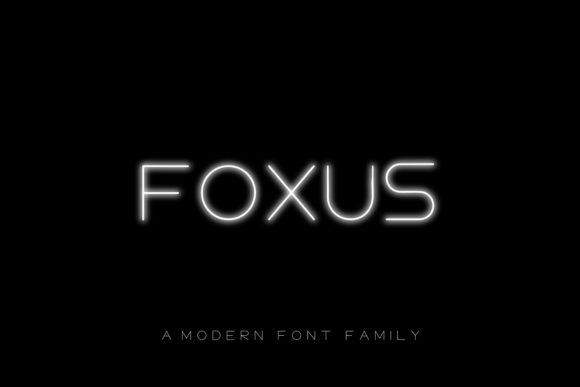
Introducing Foxus Font: The Modern Sans Serif for Creative Projects
Are you on the lookout for a font that can elevate your creative projects to the next level? Look no further than Foxus Font, a modern and neat lettered sans serif font that’s perfect for designers and crafters alike. With its clean lines and versatile design, Foxus Font can easily be matched to an incredibly large set of projects, making it a valuable addition to your typography toolkit.
What Makes Foxus Font Stand Out?
Foxus Font is a sans serif font, which means it doesn’t have the small lines or flourishes that are characteristic of serif fonts. This gives it a clean and modern look that’s perfect for projects that require a sleek and contemporary feel. The font is also highly legible, making it easy to read and understand, even at small sizes.
Key Features of Foxus Font
- Modern and Neat Design: Foxus Font has a modern and neat design that’s perfect for projects that require a clean and contemporary look.
- Highly Legible: The font is highly legible, making it easy to read and understand, even at small sizes.
- Versatile: Foxus Font can easily be matched to an incredibly large set of projects, making it a valuable addition to your typography toolkit.
- Easy to Use: The font is easy to use and can be easily integrated into your design workflow.
How to Use Foxus Font in Your Projects
Foxus Font can be used in a wide range of projects, from graphic design and branding to crafting and DIY projects. Here are a few ideas to get you started:
- Graphic Design: Use Foxus Font in your graphic design projects, such as logos, brochures, and business cards.
- Branding: Foxus Font is perfect for branding projects, such as packaging and advertising.
- Crafting: Use Foxus Font in your crafting projects, such as handmade cards and gift tags.
- DIY Projects: Foxus Font can be used in a wide range of DIY projects, such as signs and banners.
Tips for Getting the Most Out of Foxus Font
Here are a few tips for getting the most out of Foxus Font:
- Experiment with Different Sizes: Foxus Font looks great at a wide range of sizes, so don’t be afraid to experiment with different sizes to find the one that works best for your project.
- Pair it with Other Fonts: Foxus Font can be paired with other fonts to create a unique and interesting look.
- Use it in Combination with Images: Foxus Font looks great in combination with images, so consider using it in projects that include photographs or illustrations.
| Font Name | Foxus Font |
| Author | Nest Studio |
In conclusion, Foxus Font is a modern and neat lettered sans serif font that’s perfect for designers and crafters alike. With its clean lines and versatile design, Foxus Font can easily be matched to an incredibly large set of projects, making it a valuable addition to your typography toolkit. Whether you’re working on a graphic design project, a crafting project, or a DIY project, Foxus Font is sure to make your project stand out.
- What is Foxus Font?: Foxus Font is a modern and neat lettered sans serif font.